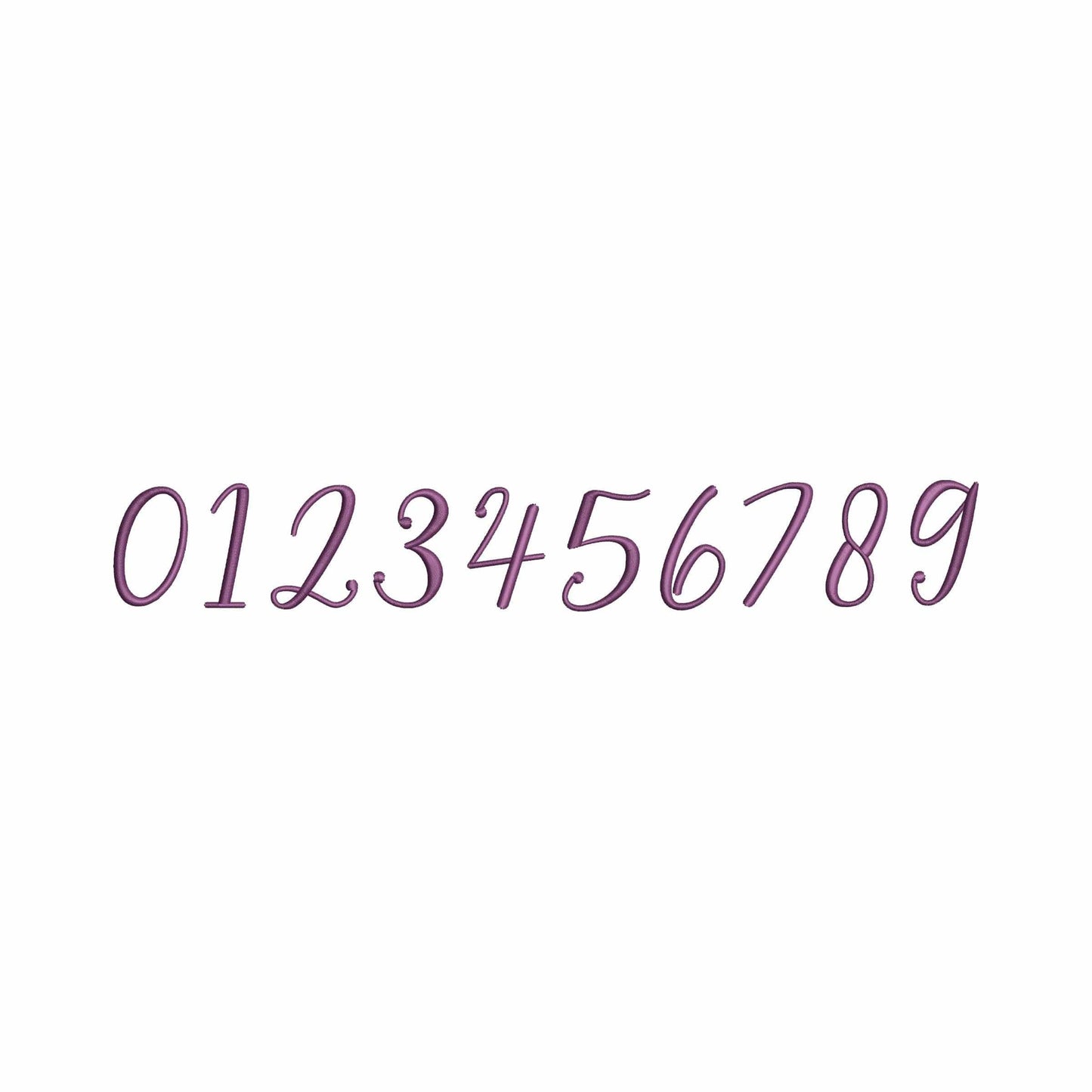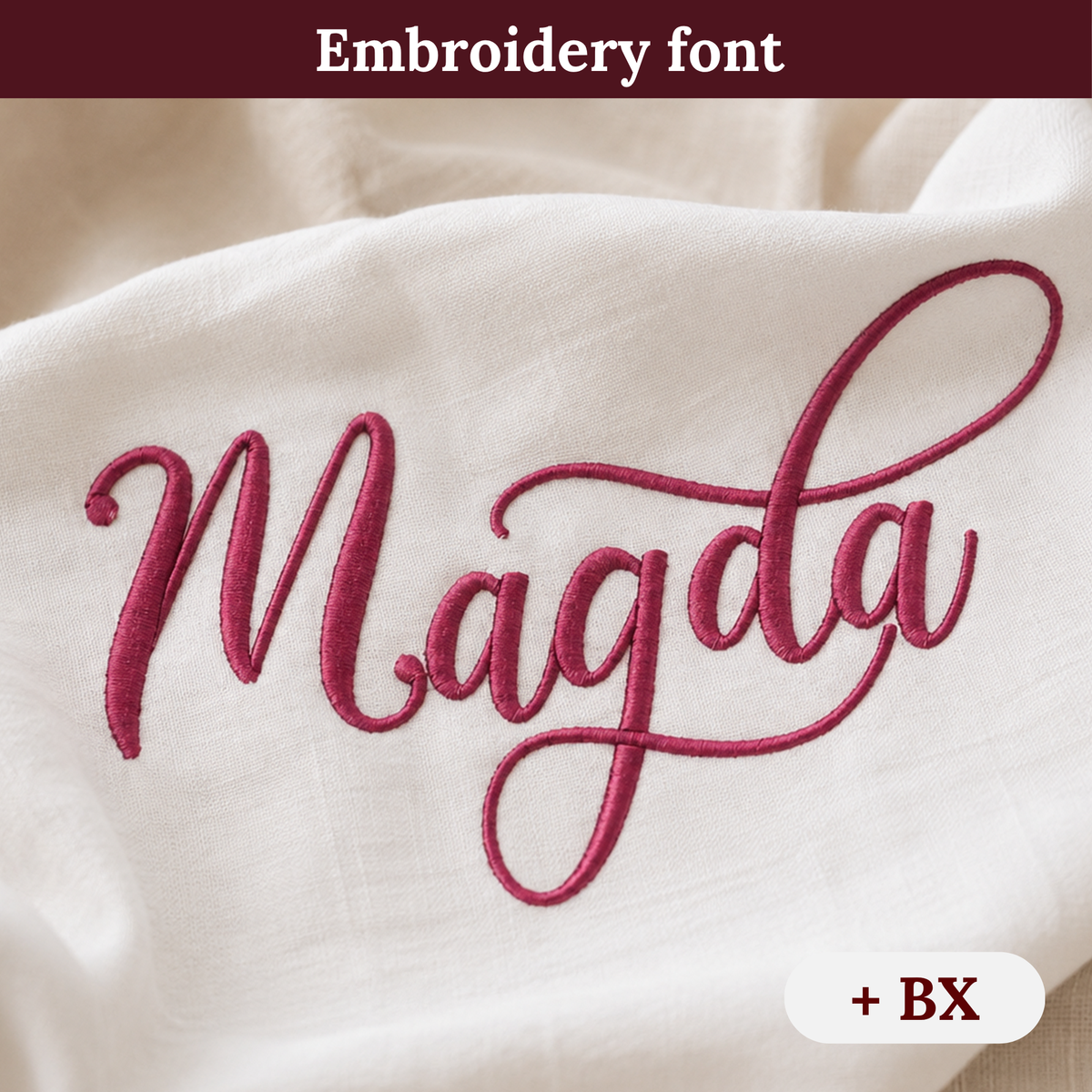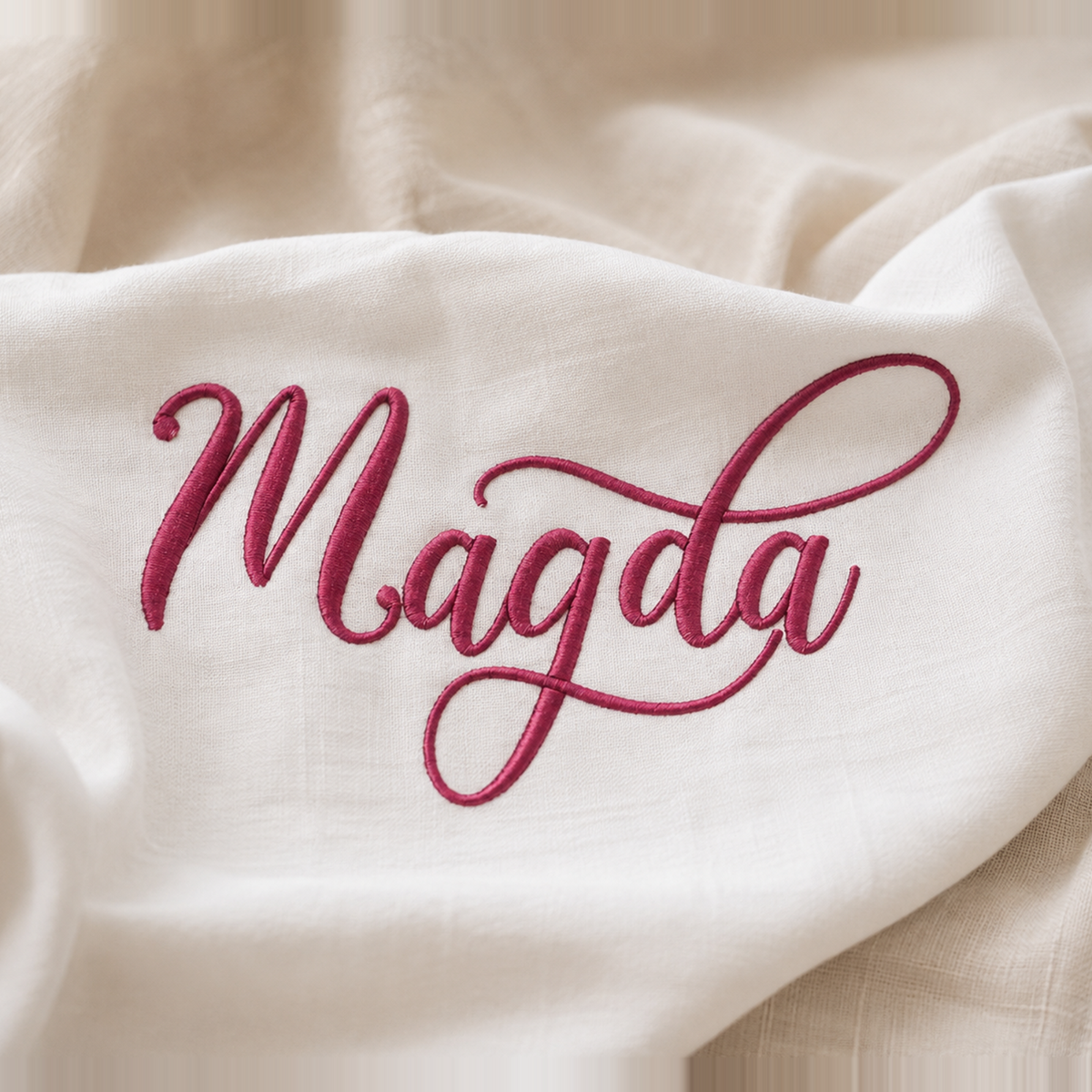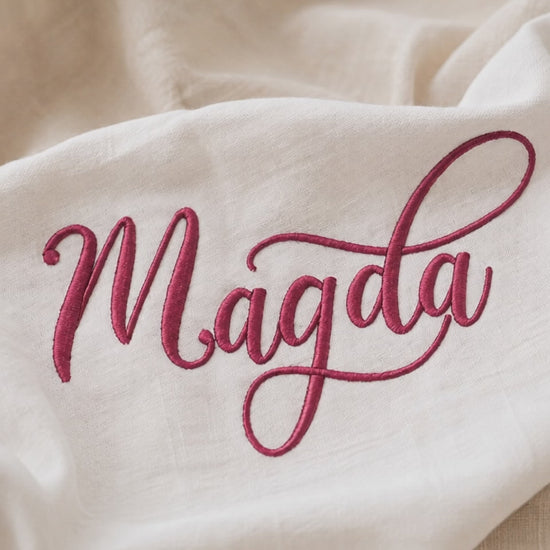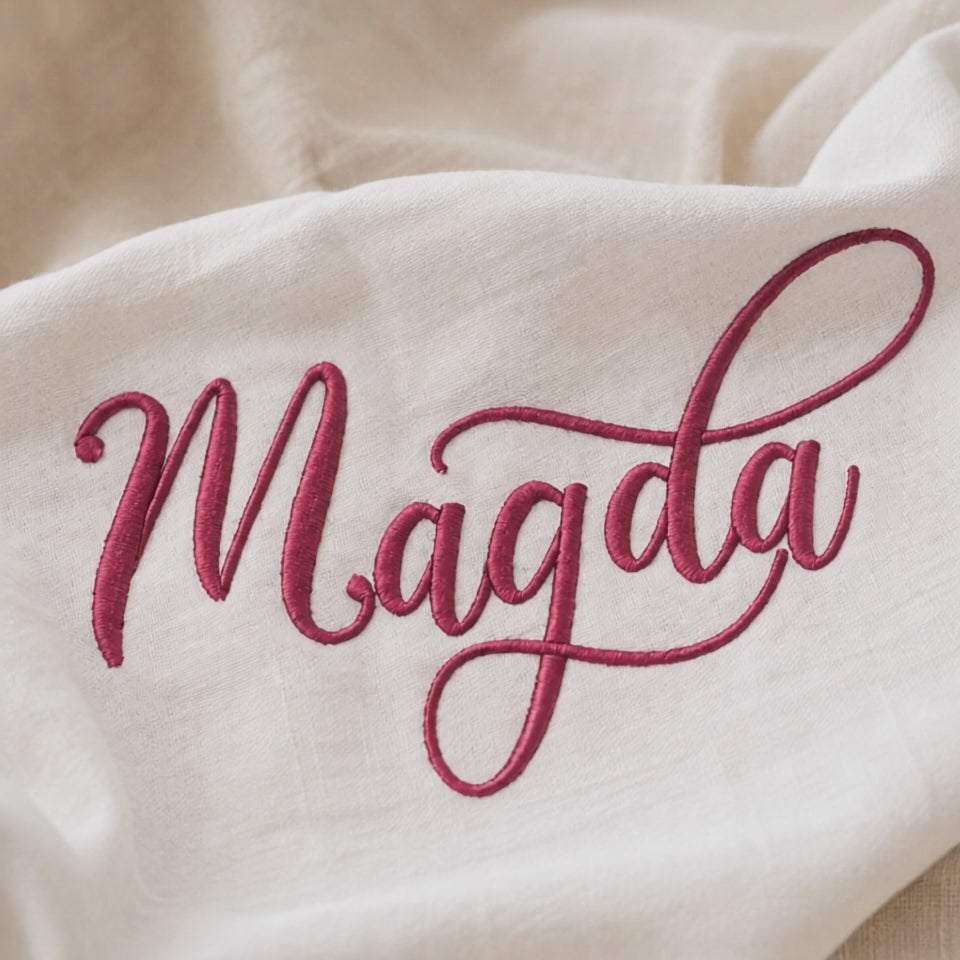
Magda - Embroidery font
This machine embroidery font works well for monograms, robes, towels, gifts, shirts, and polished personalized embroidery.
A strong choice for makers who want script lettering for elegant monogram projects and refined keepsakes.